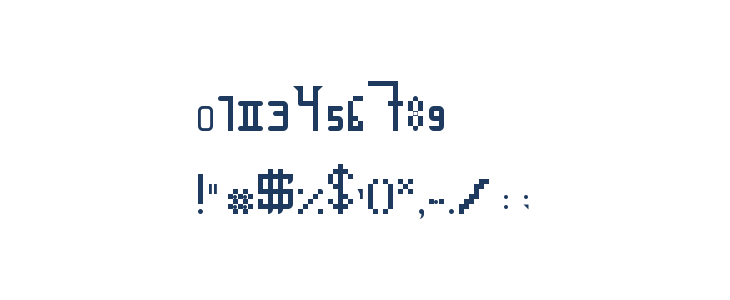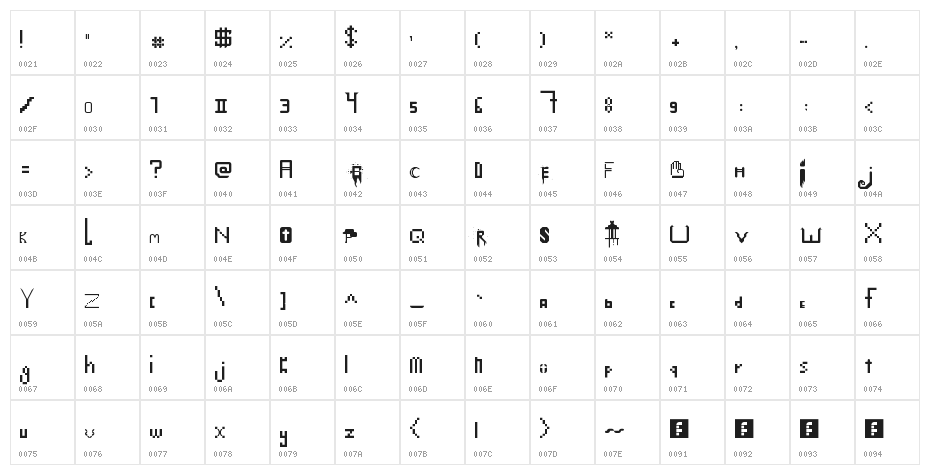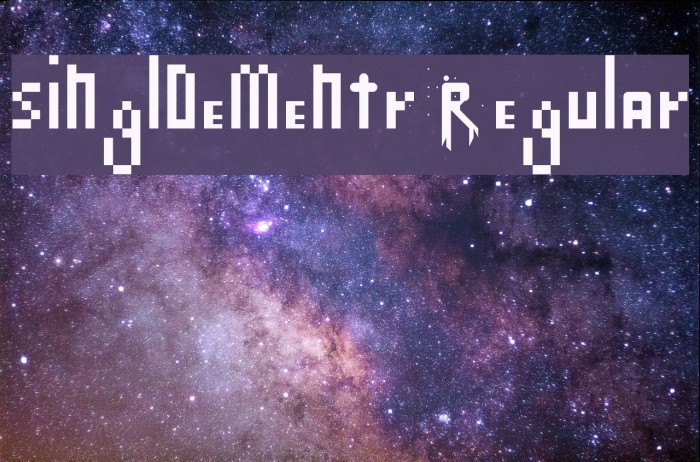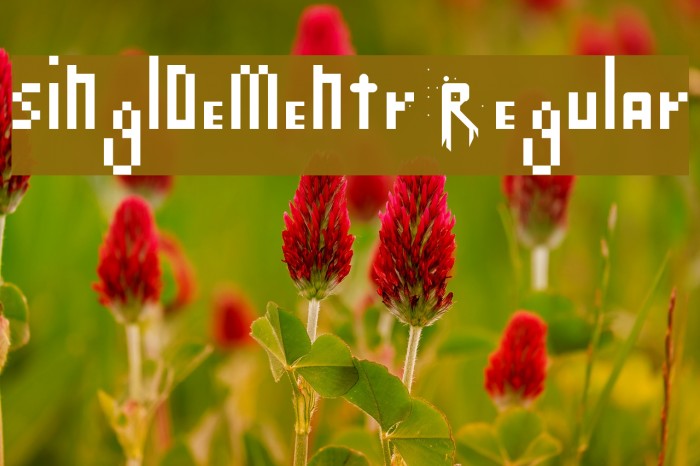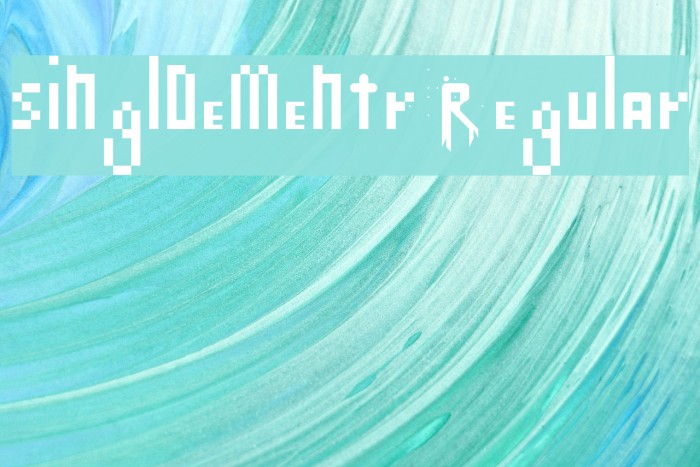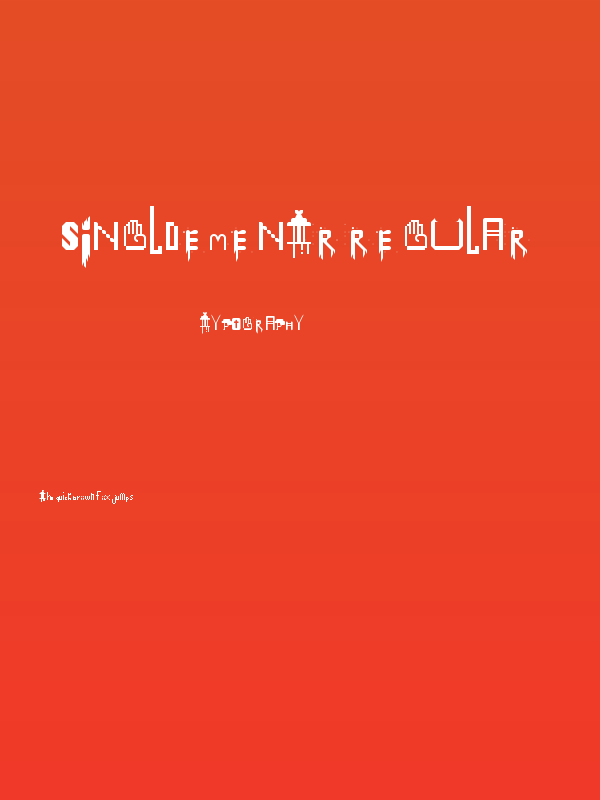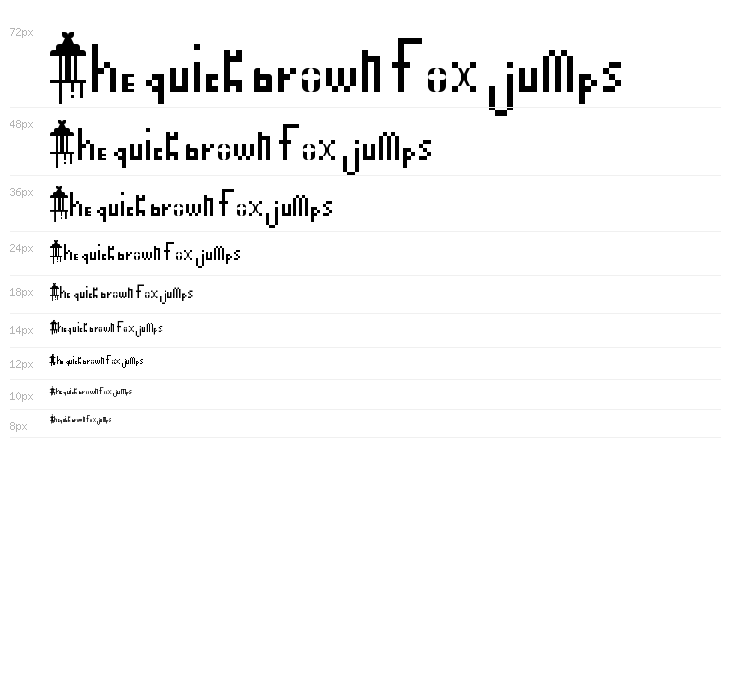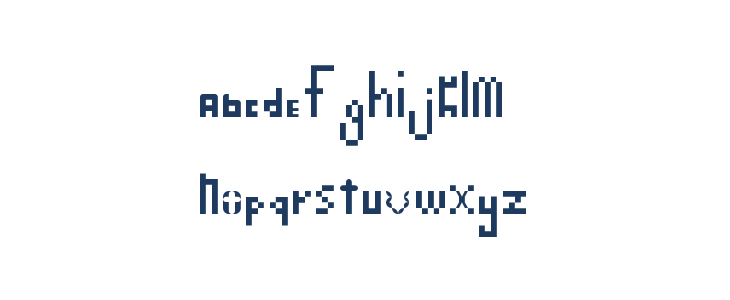
singlDementr Regular Font
This font features a highly decorative and eclectic style, with each character showcasing unique and creative elements. The uppercase letters incorporate various thematic designs, such as flames, crosses, and geometric patterns, giving them a distinct and artistic appearance. The lowercase letters maintain a more consistent style but still exhibit a playful and unconventional approach. The numerals and special characters continue this theme, with bold and imaginative designs that stand out. Overall, this font is characterized by its boldness and creativity, making it suitable for projects that require a strong visual impact.